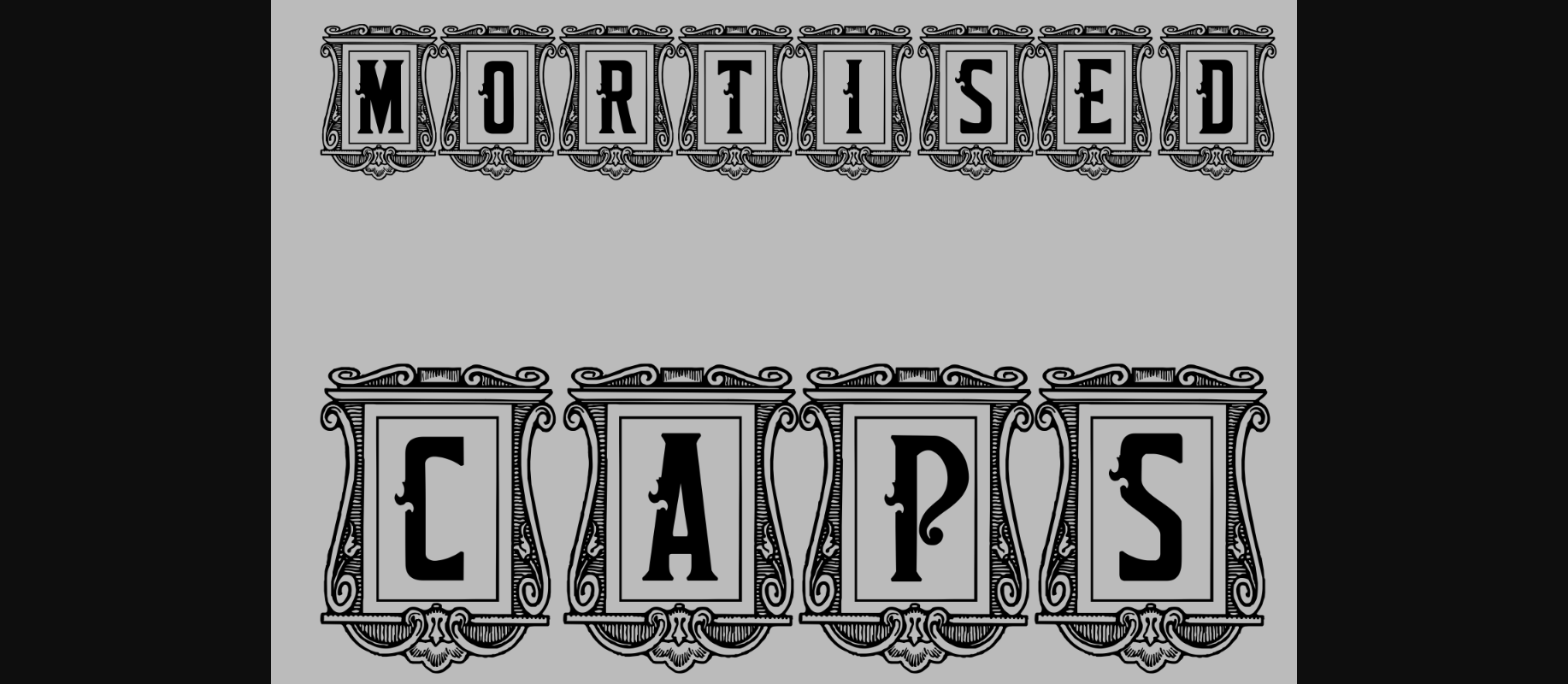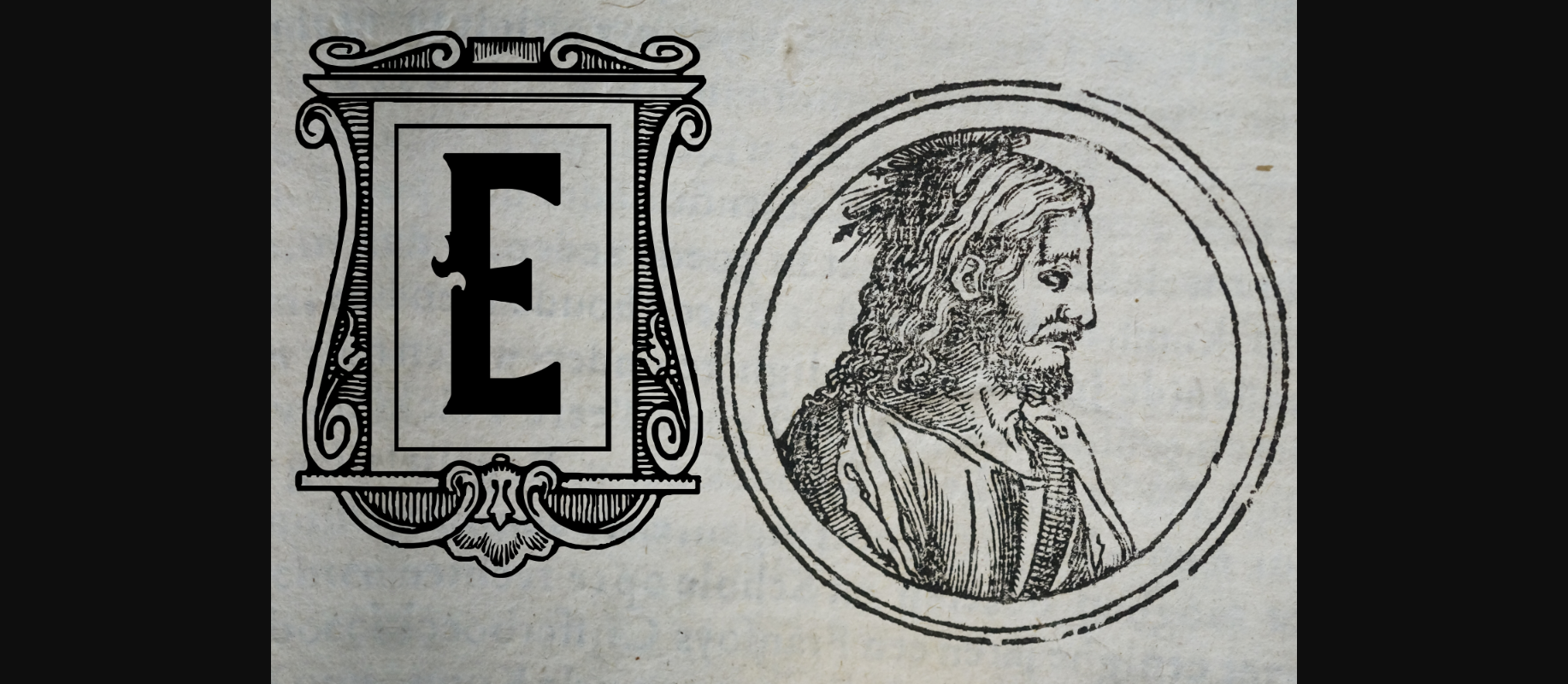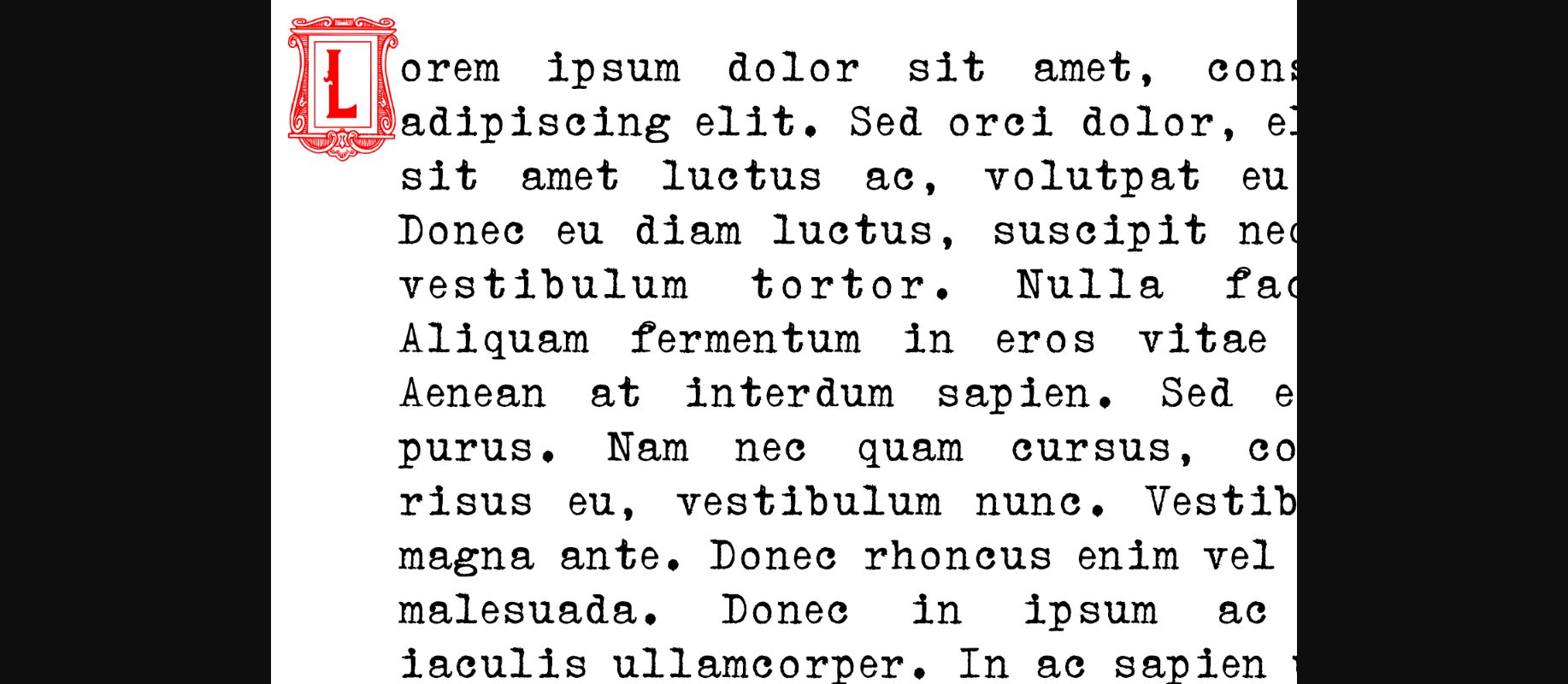
About Mortised Caps Font
Mortised Caps is an incredibly unique and vintage styled decorative font. This original look will appeal to a wide range of crafty ideas, from letterheads and titles, to stationery.